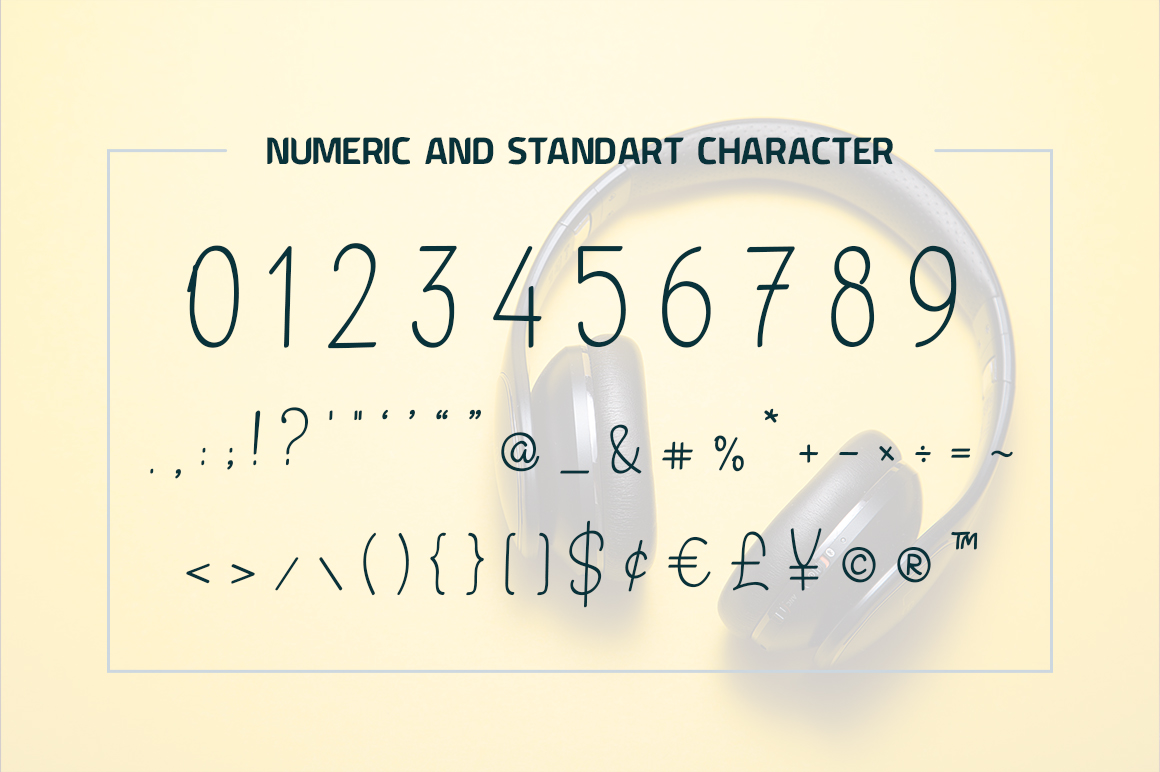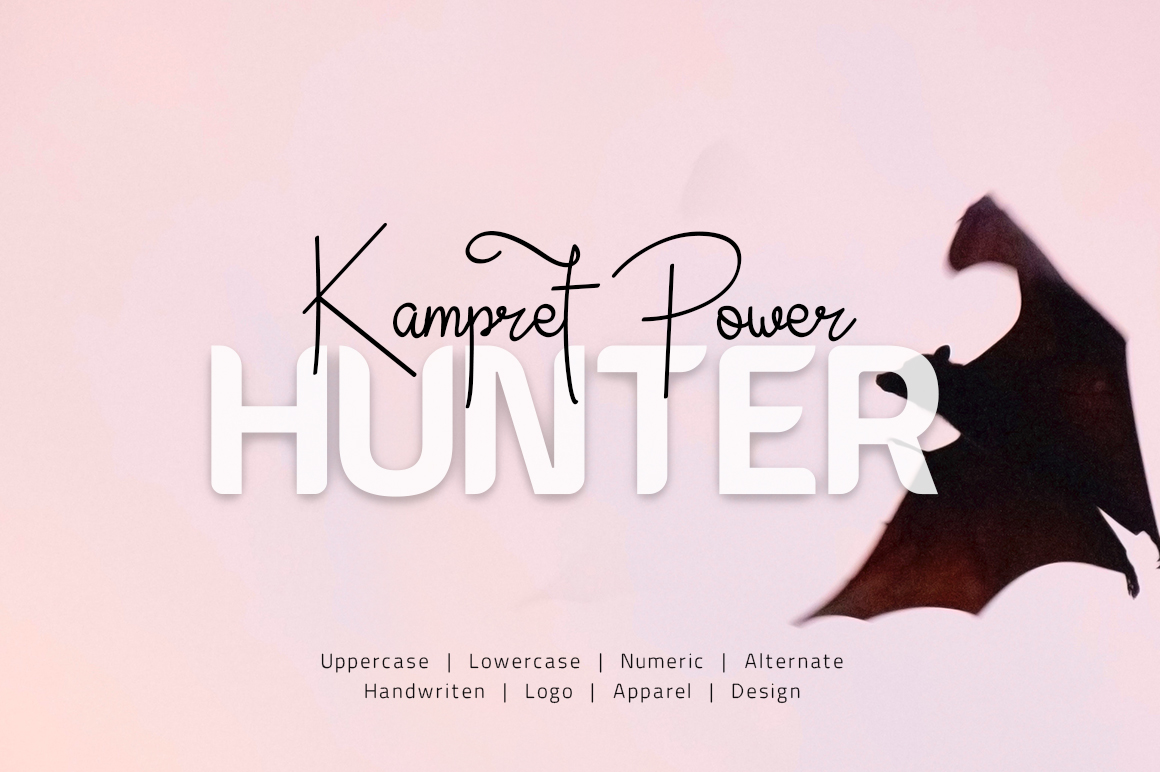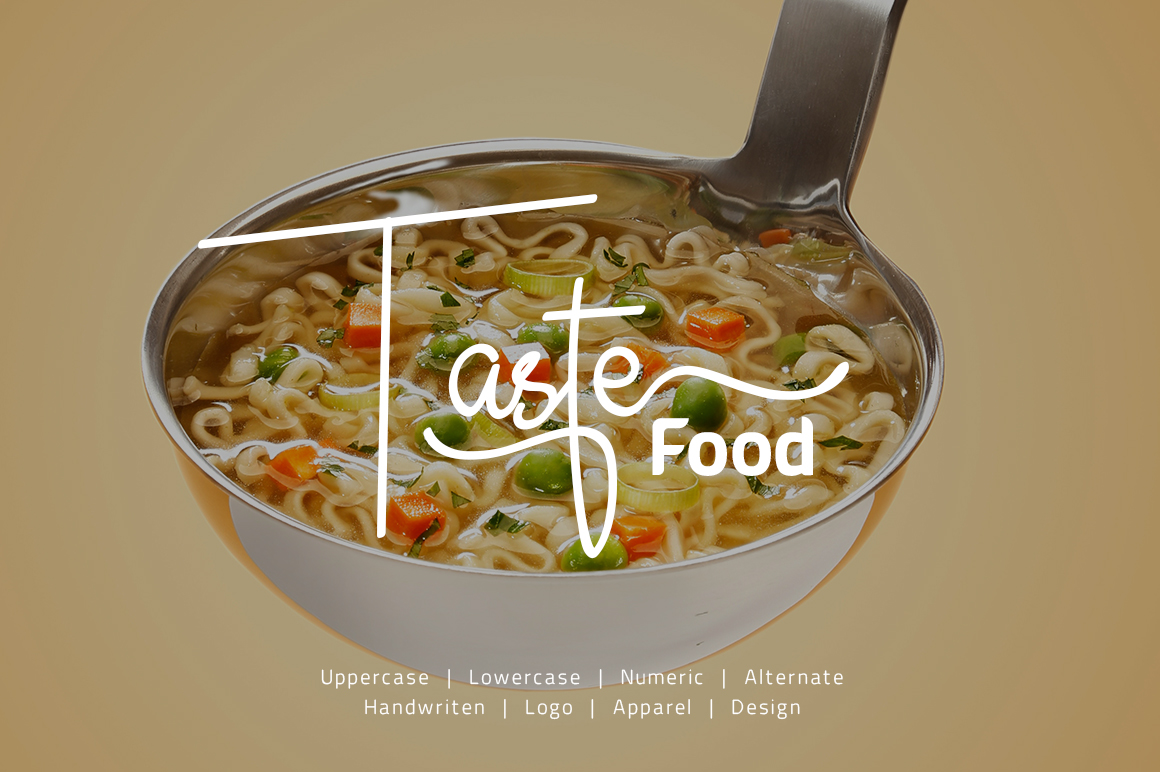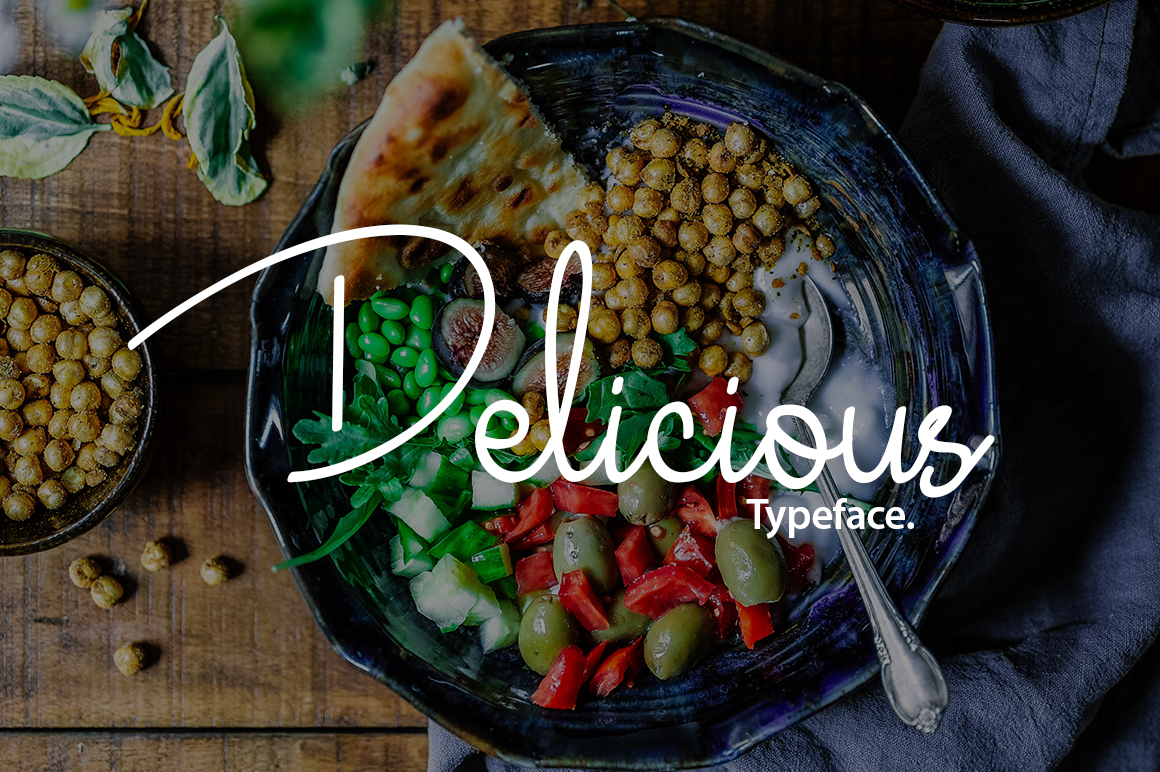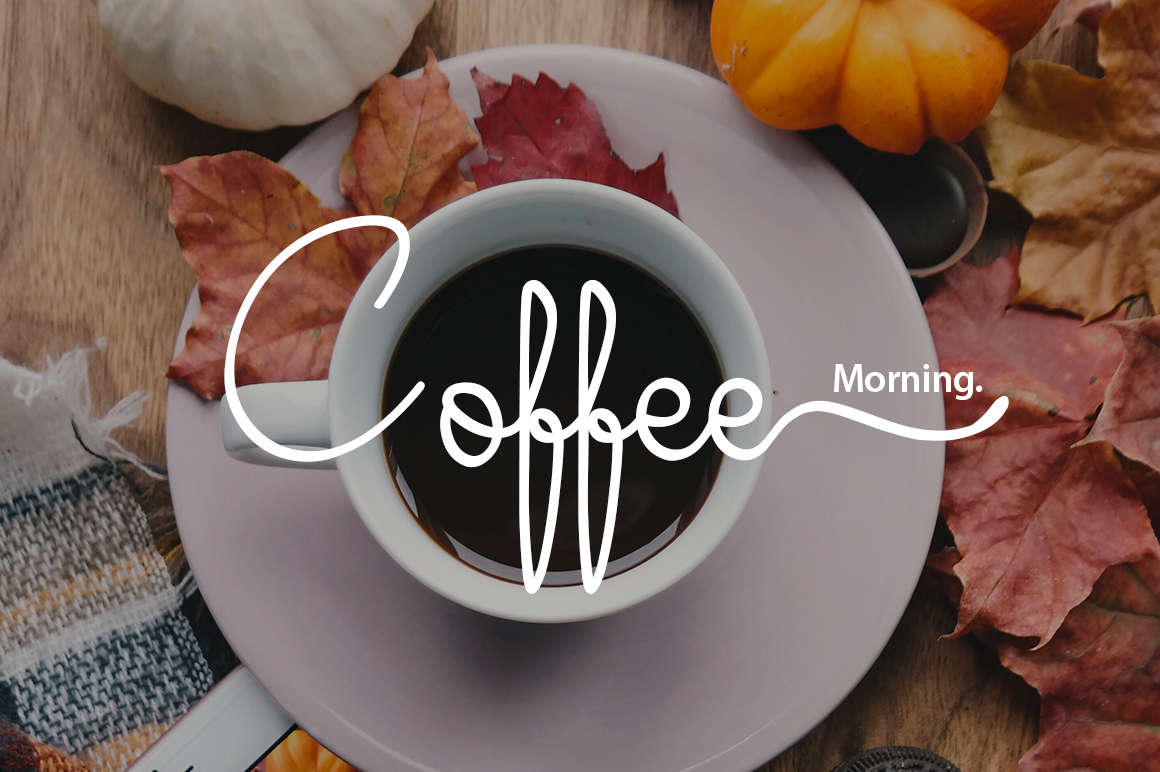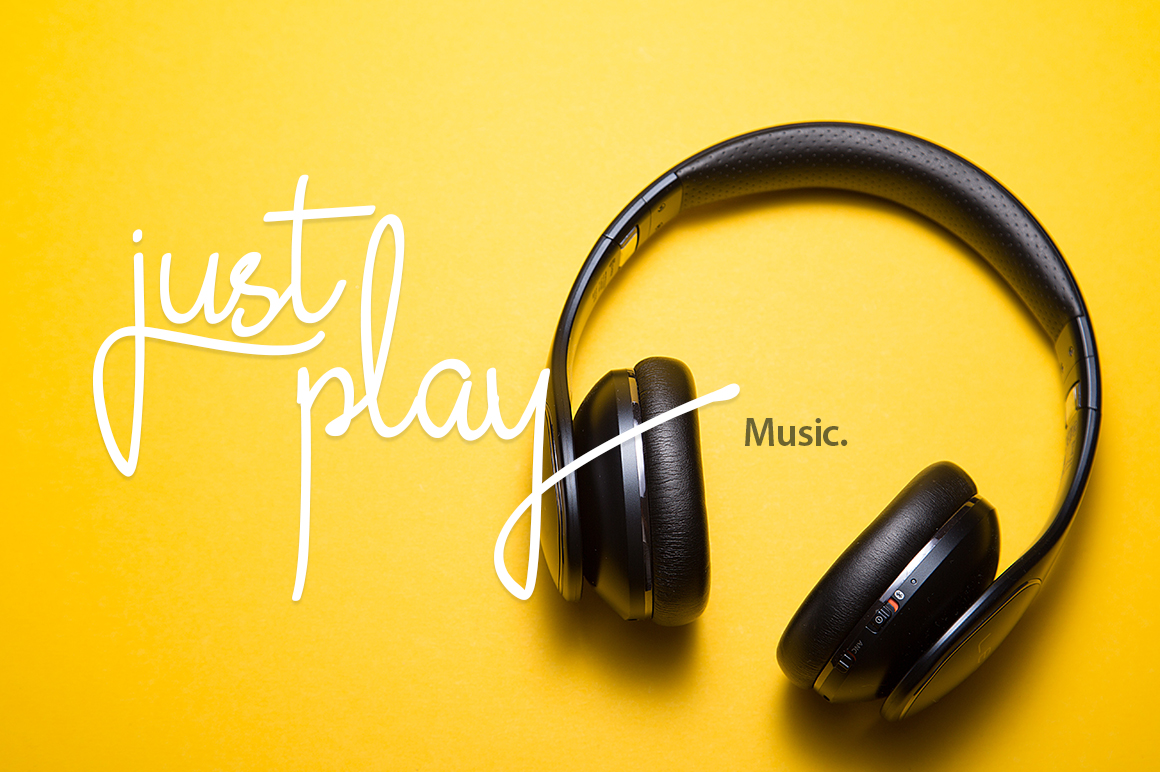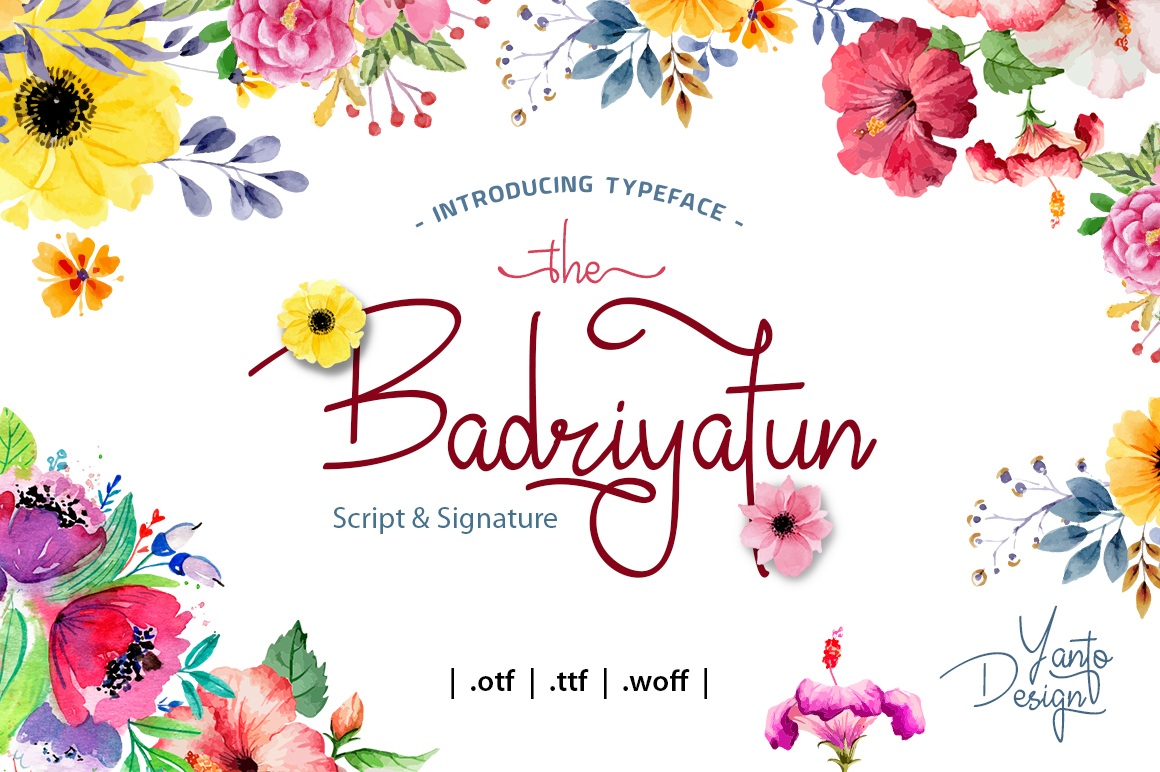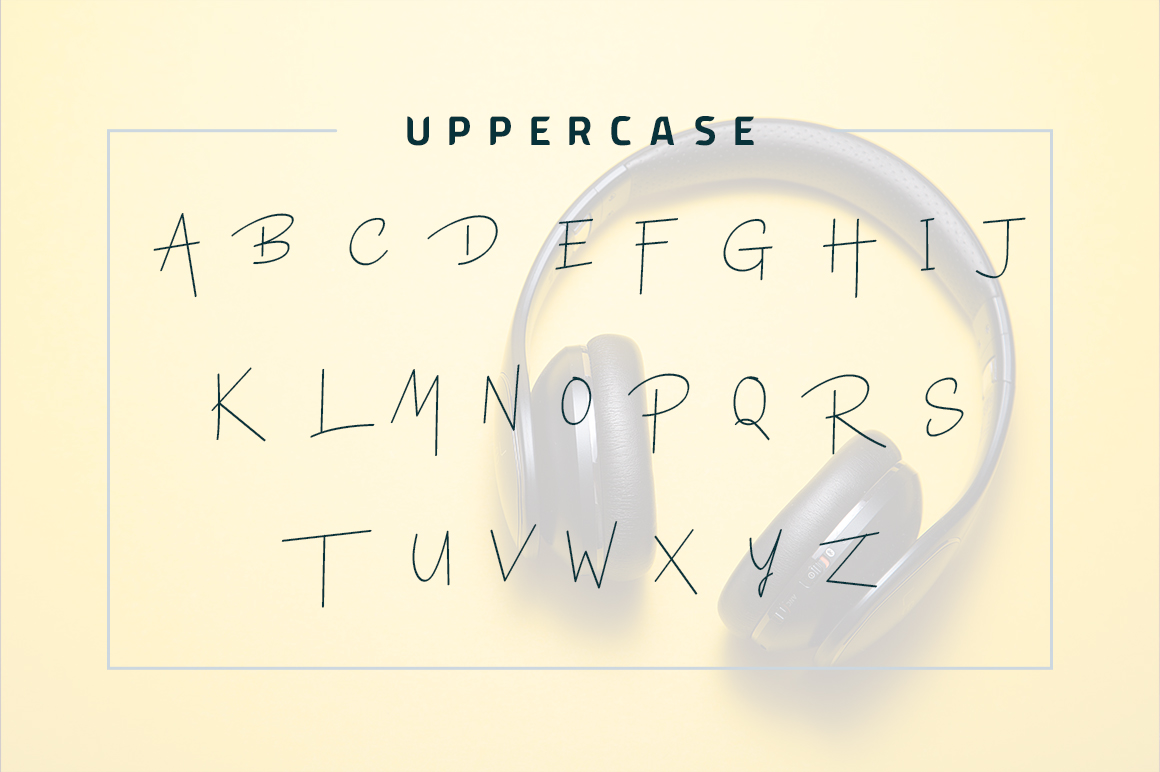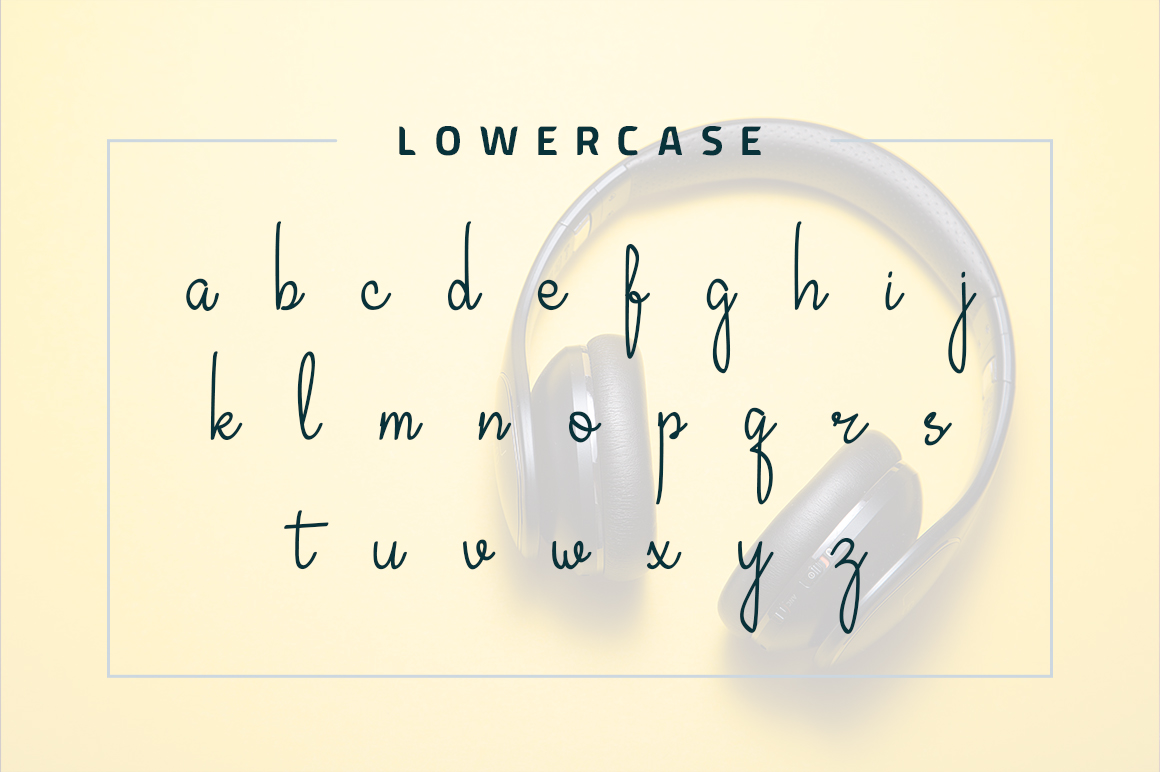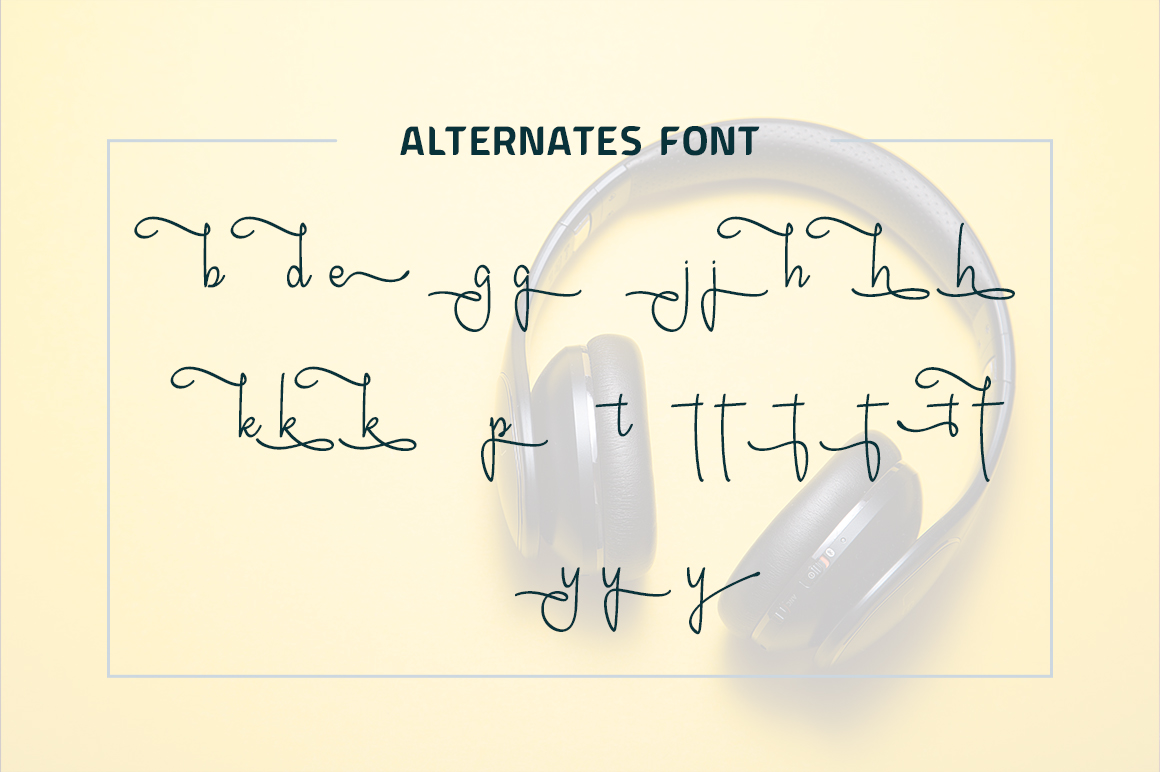
Badriyatun // Luxury Signature Font
Badriyatun Script is a stylish calligraphy font that features a varying baseline, smooth line, classic and interesting touch. Can be used for various purposes. such as headings, signature, logos, posters, t-shirt, signage, lable, wedding invitation, badges etc.